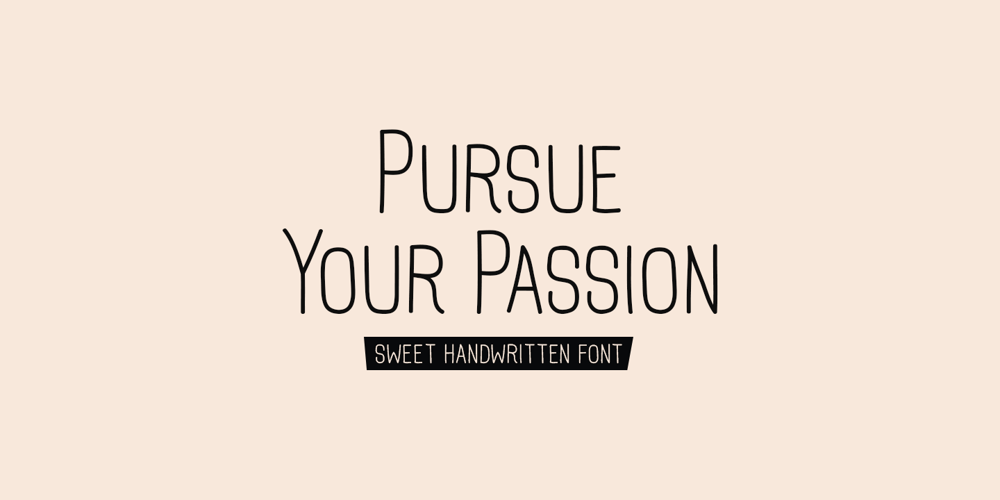
Pursue Your Passion Font Family was designed by Md Shohail Bhuian and published by Seemly Fonts. Pursue Your Passion contains 1 styles and family package options. Pursue Your Passion presents a sophisticated handwritten font meticulously crafted to infuse your designs with a touch of artistic elegance. Its natural flow and unique style make it a versatile choice for a diverse range of projects, from branding to editorial design. This font transcends conventional boundaries, inviting creativity to soar without limitations. Its innate charm adds a layer of refinement to your visual narratives, while the impeccable attention to detail ensures seamless integration into your design arsenal. Unleash your creative potential with Pursue Your Passion, where imagination knows no bounds.